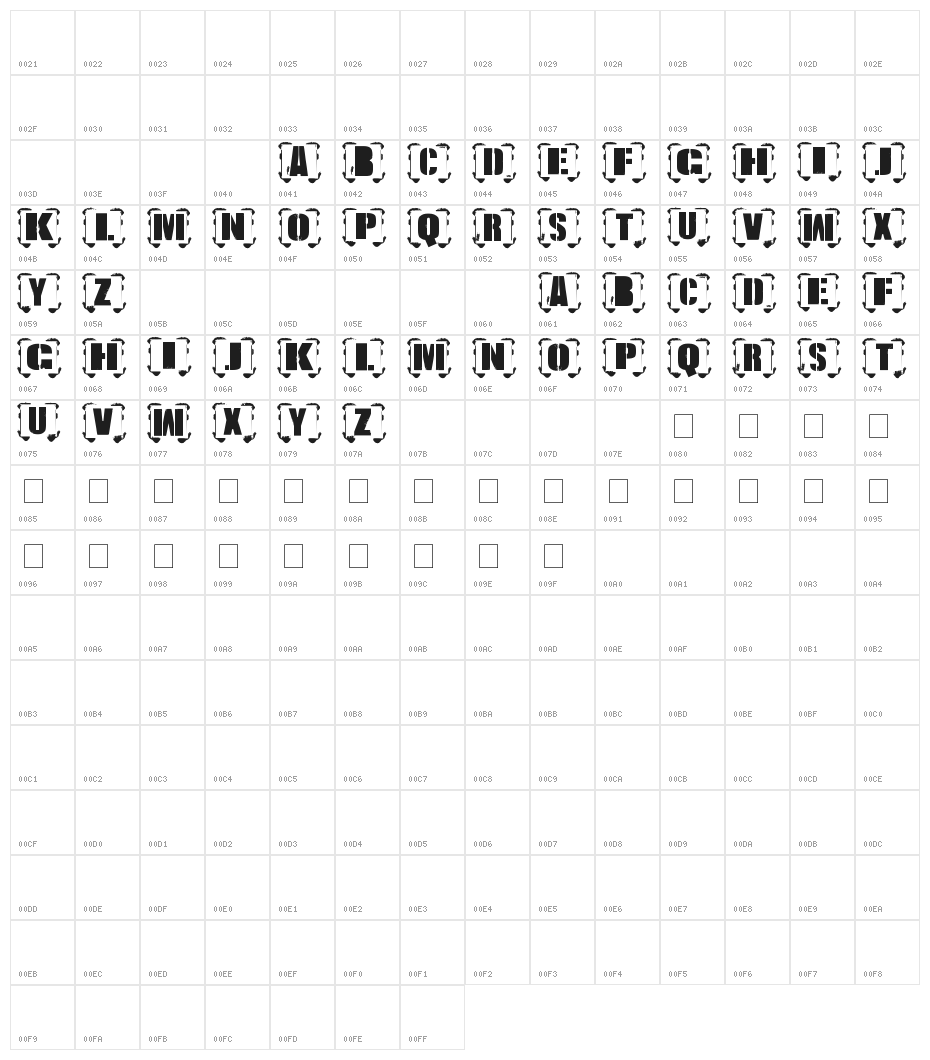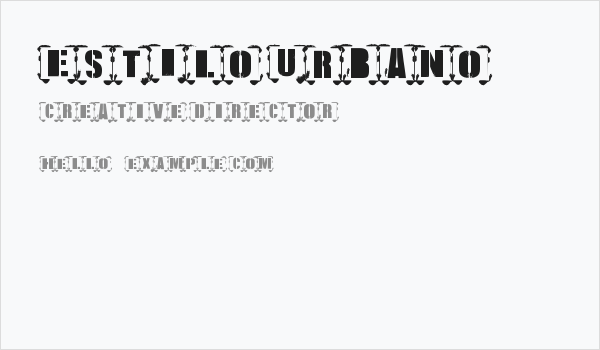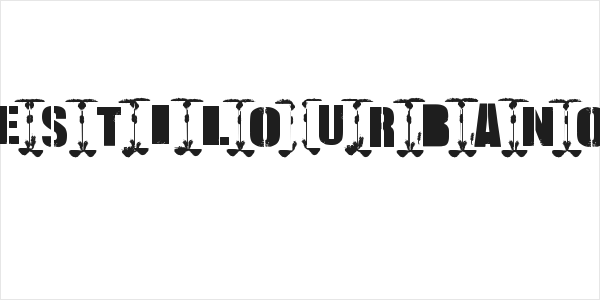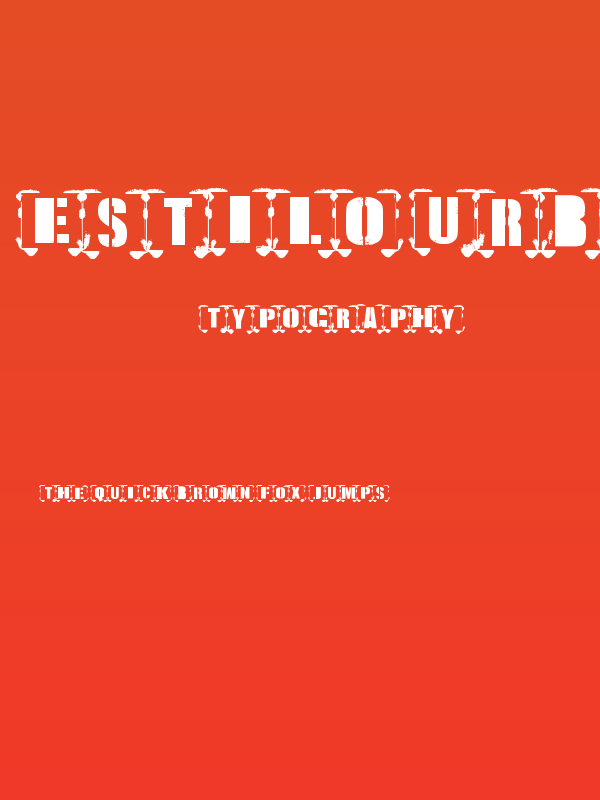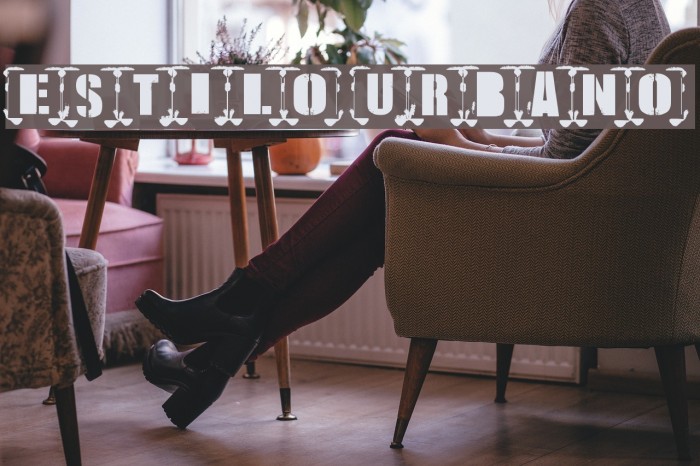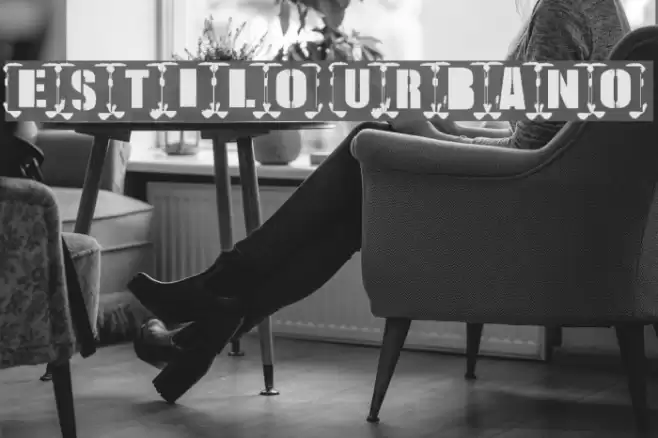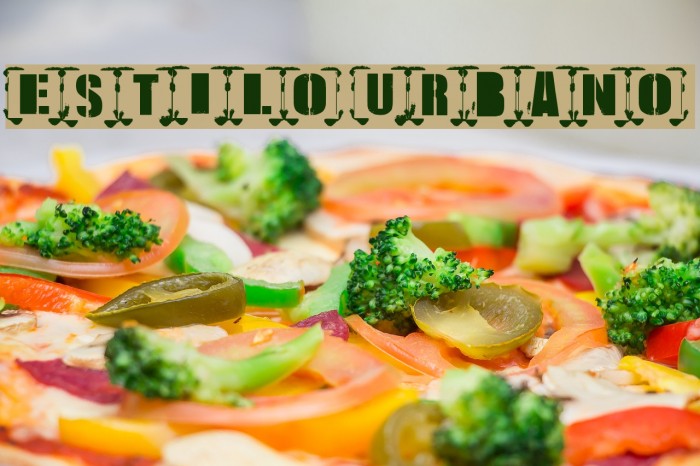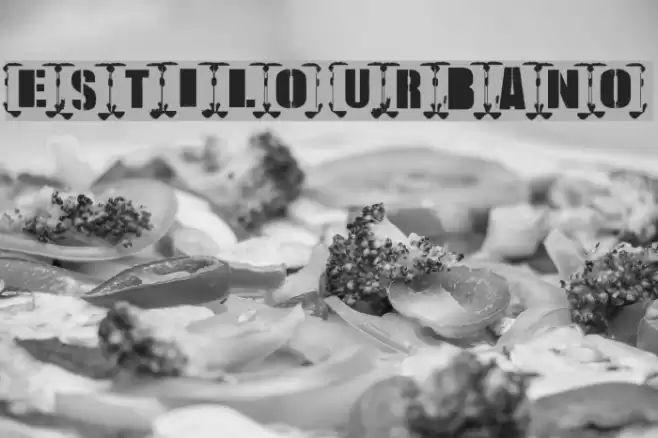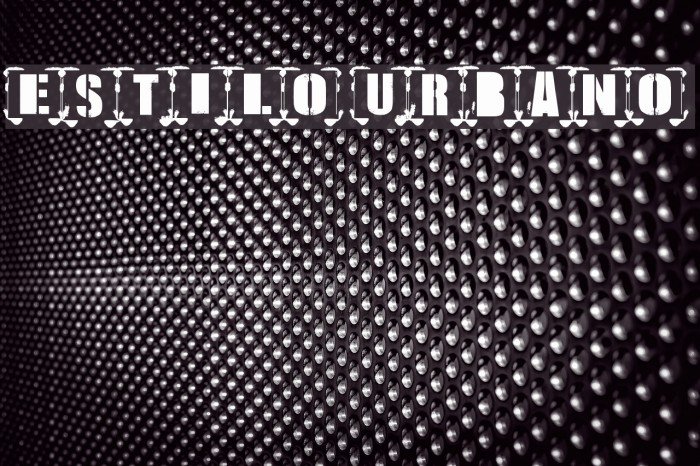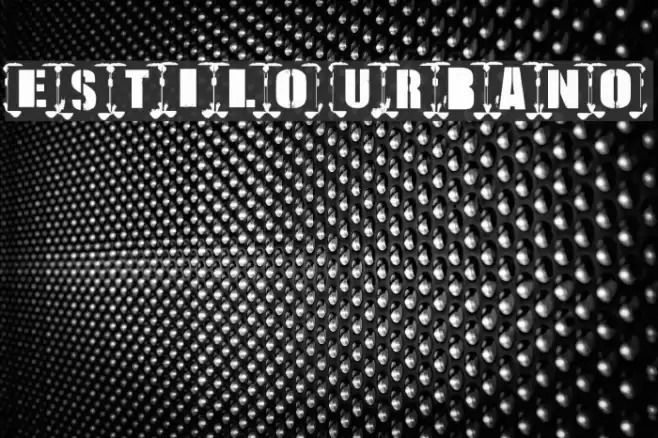
ESTILO URBANO Font
Fonts by Rodrigo German - RASDESIGN
| Gesamtstil | Urban, Modern, Decorative |
| Vorgeschlagene Projekte | Ideal for street art-themed designs, urban branding, edgy posters, and modern logos. |